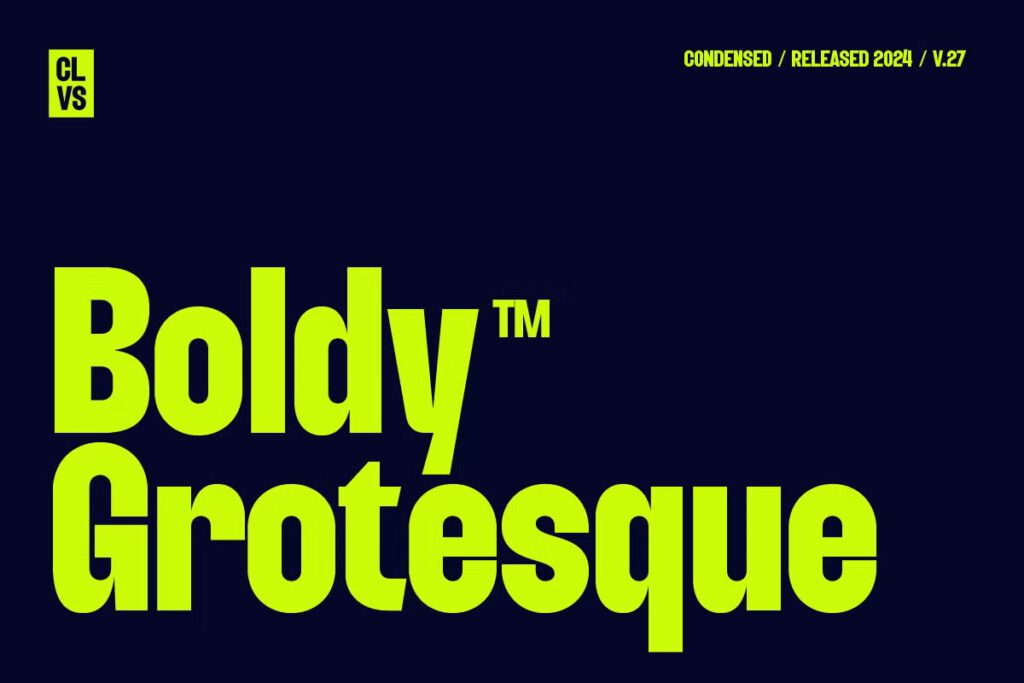
Boldy Grotesque: A Bold and Modern Grotesque Typeface for Stunning Designs
Introducing Boldy Grotesque, a modern condensed font inspired by the classic grotesque typefaces. Bold, sleek, and contemporary, this font is perfect for creating powerful and eye-catching designs. Whether you’re working on logos, branding projects, magazine layouts, wedding invitations, or social media posts, Boldy Grotesque will elevate your designs to the next level with its versatile style.
Why Choose Boldy Grotesque?
Boldy Grotesque combines the timeless appeal of classic typefaces with a bold, modern touch. Its condensed form provides a sleek and powerful impact, ideal for grabbing attention. Whether you’re creating professional branding or fun, quirky social media posts, Boldy Grotesque adapts to every design need.
Key Features of Boldy Grotesque
Modern and Bold Design:Inspired by classic grotesque fonts, Boldy Grotesque brings a bold, condensed look that works perfectly for headlines, posters, and branding projects.
OpenType Features:Boldy Grotesque is equipped with 40 unique alternates and ligatures, allowing you to add stylistic flourishes and personalized touches to your designs.
Multilingual Support:Boldy Grotesque supports a wide range of languages including English, French, German, Spanish, and more, making it an excellent choice for global branding projects.
Where to Use Boldy Grotesque
Logos and Branding:Boldy Grotesque’s strong, condensed style makes it a perfect choice for logo design. Its clean lines and bold look ensure that your brand stands out from the competition.
Posters and Headlines:The bold and sleek design of this font draws attention, making it ideal for headlines, posters, and promotional materials.
Magazines and Editorial Design:For magazines and blogs, Boldy Grotesque helps create a sophisticated and modern look, making your content visually appealing and professional.
Social Media and Quotes:Whether you’re creating social media posts, inspirational quotes, or blog graphics, Boldy Grotesque adds a bold and trendy flair to your online presence.
Letters, Numbers, Symbols, and Punctuation : Boldy Grotesque comes fully equipped with all the necessary letters, numbers, symbols, and punctuation, making it suitable for a variety of design projects.
40 Alternates and Ligatures: The font includes 40 unique alternates and ligatures, offering endless possibilities for creating custom typography designs.
Multilingual Support: Boldy Grotesque supports several languages, including Danish, French, German, Portuguese, Spanish, Swedish, and many more.
Why Boldy Grotesque Stands Out
Boldy Grotesque’s unique combination of modern style, classic inspiration, and versatile features makes it the perfect font for professional designers and hobbyists alike. With its bold design, alternate glyphs, and ligatures, you can easily create a variety of striking designs that will captivate your audience.